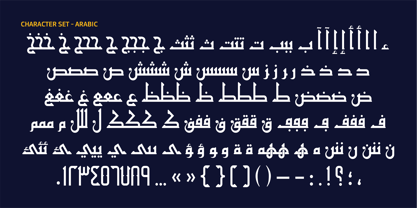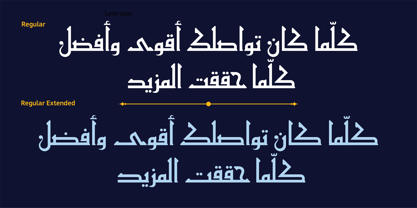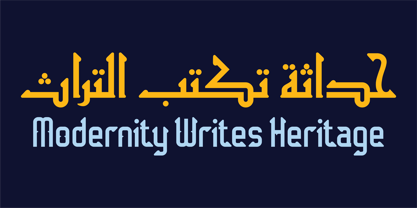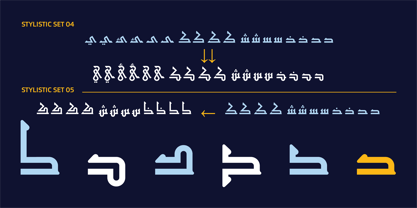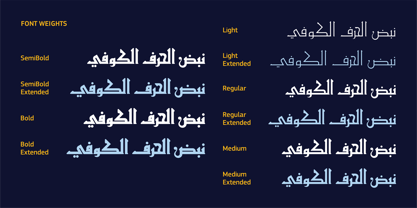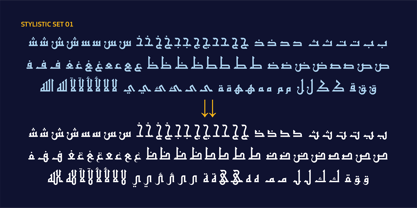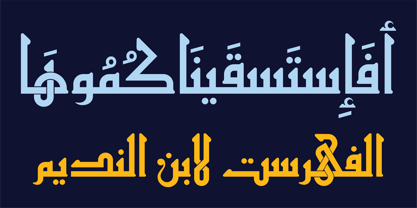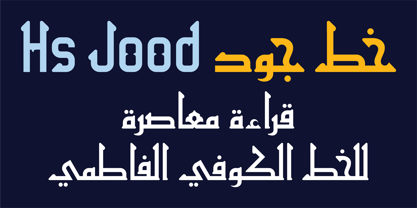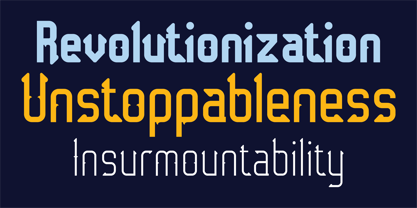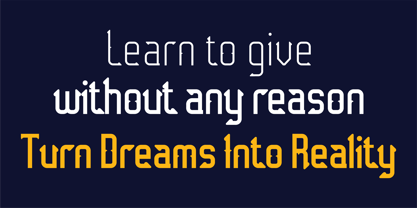
HS Jood
La familia tipográfica HS Jood fue diseñada por Hasan Abu Afash y publicada por Hiba Studio. HS Jood contiene 11 estilos. Más información sobre esta familia
HS Jood — A Contemporary Reading of Fatimid Kufic
HS Jood is a contemporary Arabic Variable Font inspired by Fatimid Kufic, reinterpreting one of the most distinctive traditions of Arabic calligraphy through a modern typographic perspective. Rather than recreating historical forms, the typeface explores their structural principles while introducing a distinctive system of ornamental terminals that extends the visual language of the script into a contemporary context.
Built as a two-axis Variable Font with independent Weight and Width controls, HS Jood provides exceptional flexibility across a wide range of typographic applications. From expressive brand identities and editorial layouts to packaging, cultural publications, architectural graphics, and digital experiences, the typeface adapts seamlessly while maintaining a coherent visual character.
With ten carefully crafted static instances, HS Jood combines historical inspiration with modern functionality, offering designers a refined Arabic type system that balances authenticity, expression, and versatility.